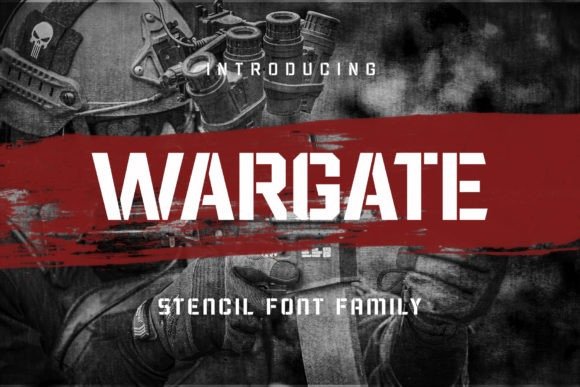
Wargate Display Font
Wargate Display Font is a font display that is made by hand, inspired by classic posters. It’s designed and shared by Arterfak. This typeface is a bold and chunky display font, inspired by the military design and urban graffiti. If you want your projects to stand out, Wargate is the best choice!